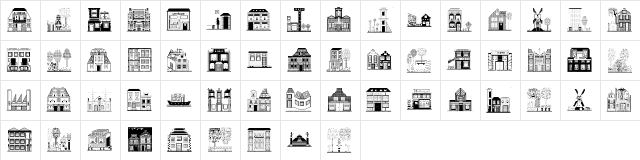
Houses Four Regular
Design Context for Houses Four Typeface
Houses Four is a composed and adaptable typeface that performs quietly and consistently across a wide range of design contexts.